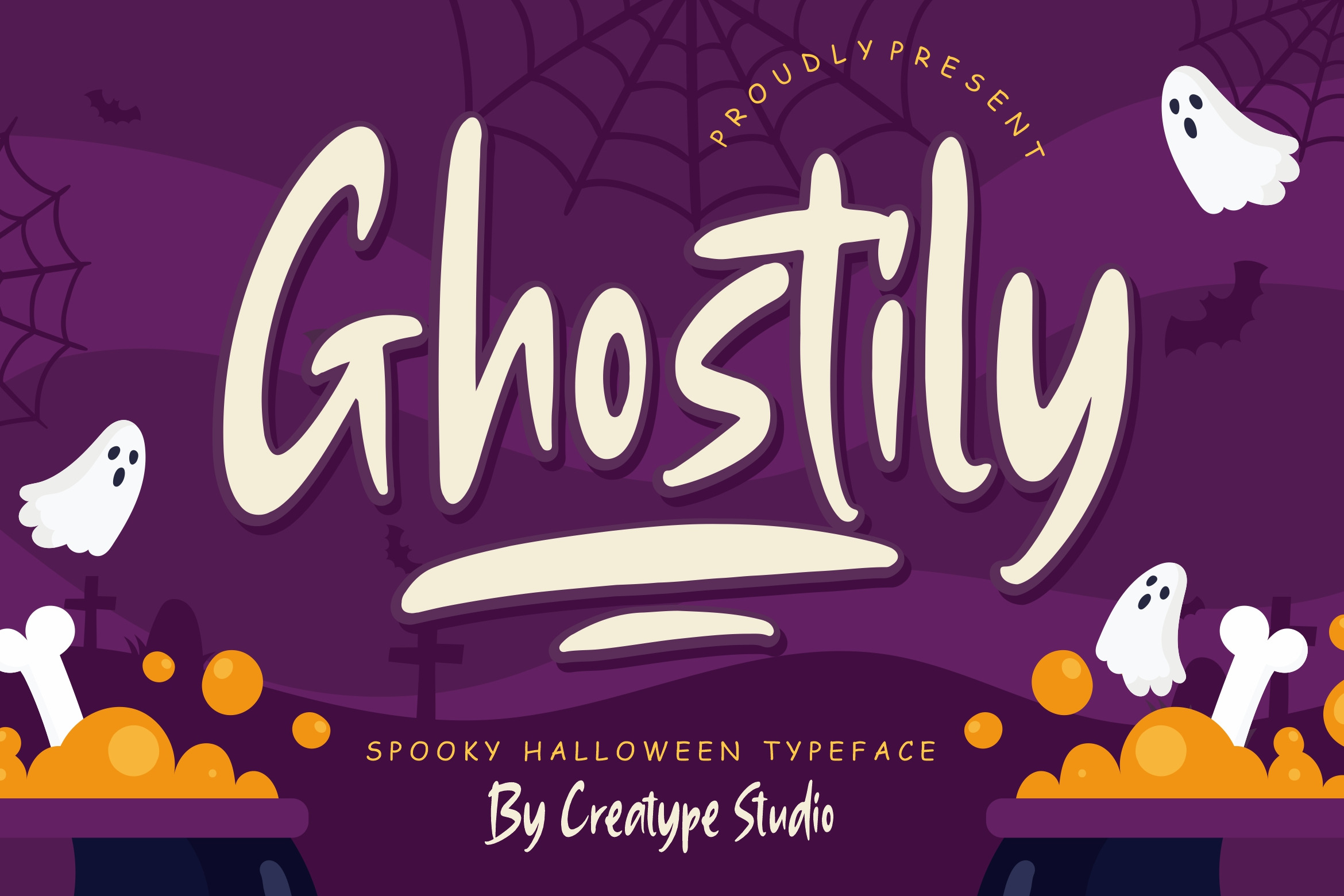
Ghostily Spooky Halloween Typeface
Ghostily a spooky fun font which perfect for halloween event and your fun project.
Ghostily is perfect for branding projects, logo, wedding designs, social media posts, advertisements, product packaging, product designs, label, photography, watermark, invitation, stationery and any projects that need handwriting taste.
- Ligatur & Alternate